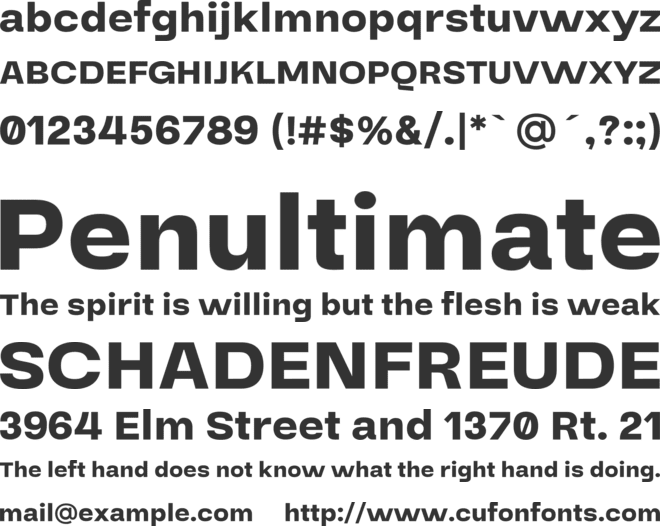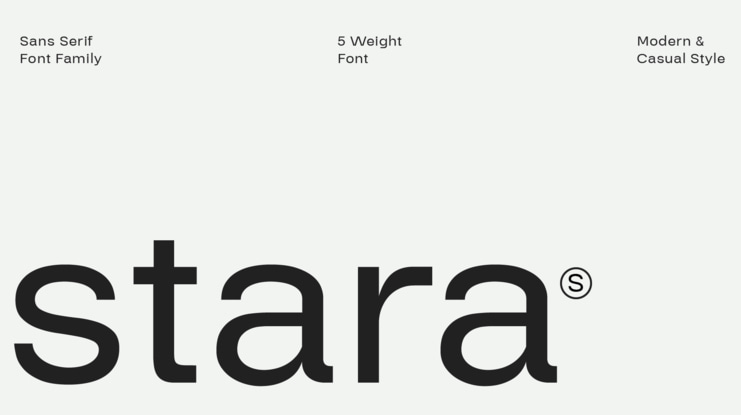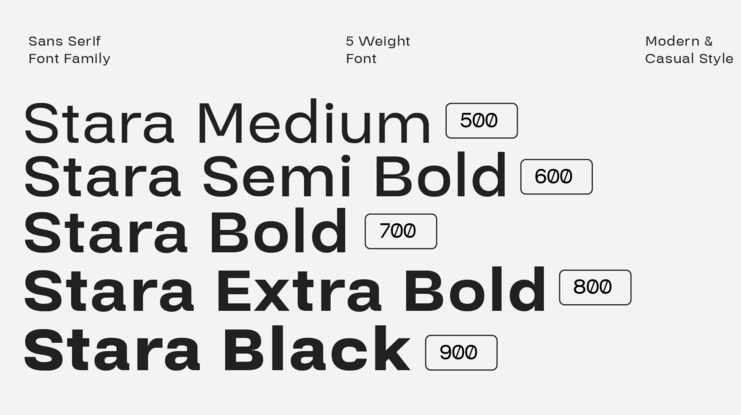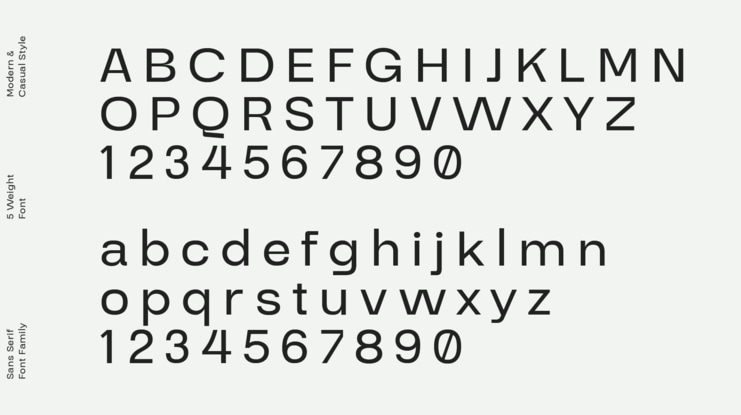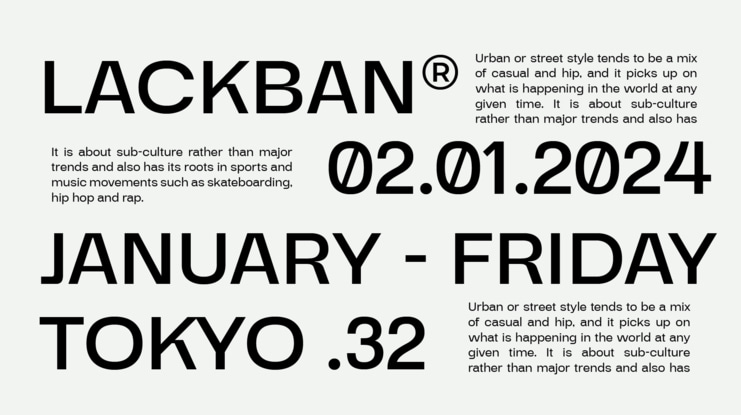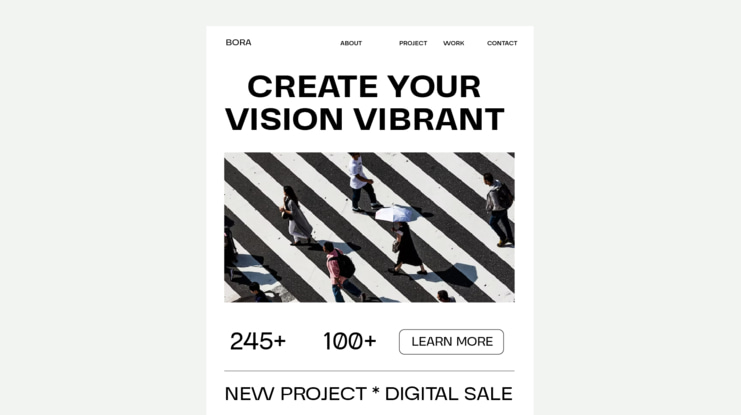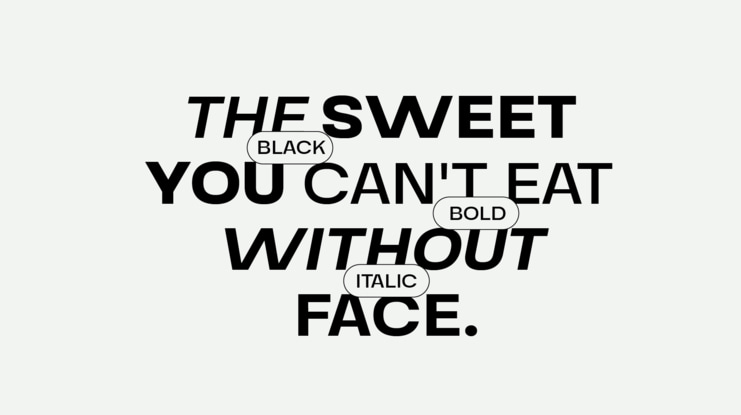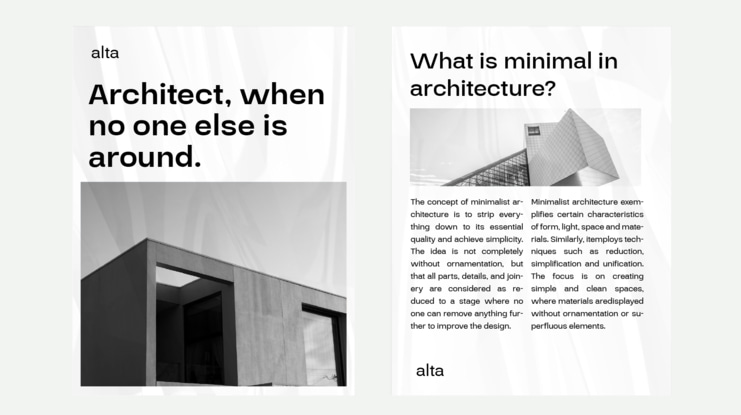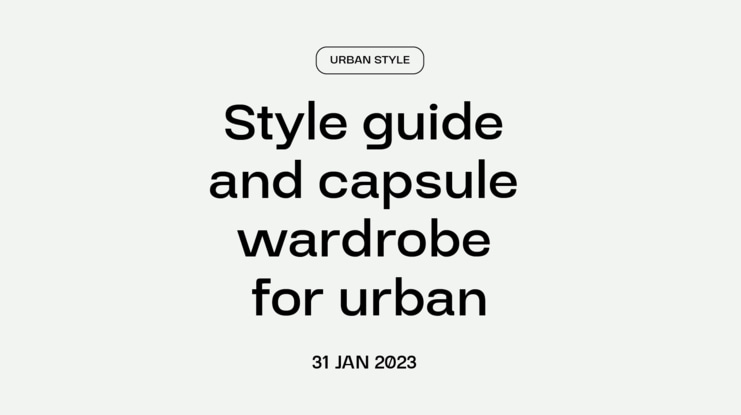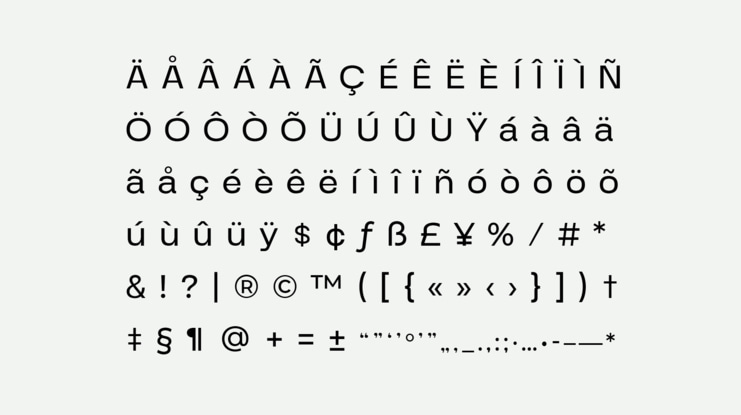
Stara Sans Serif Font
By Abdul Artega
Stara Sans Serif Font is a sans serif font family that combines simplicity with elegance. With its clean design and balanced proportions, this font gives off a modern and professional feel. Each letter is carefully designed to ensure optimal clarity and legibility.
The Stara Sans Serif font is suitable for use in a variety of design projects, such as logos, titles, paragraphs, and digital displays, with its ability to give a fresh and elegant look.